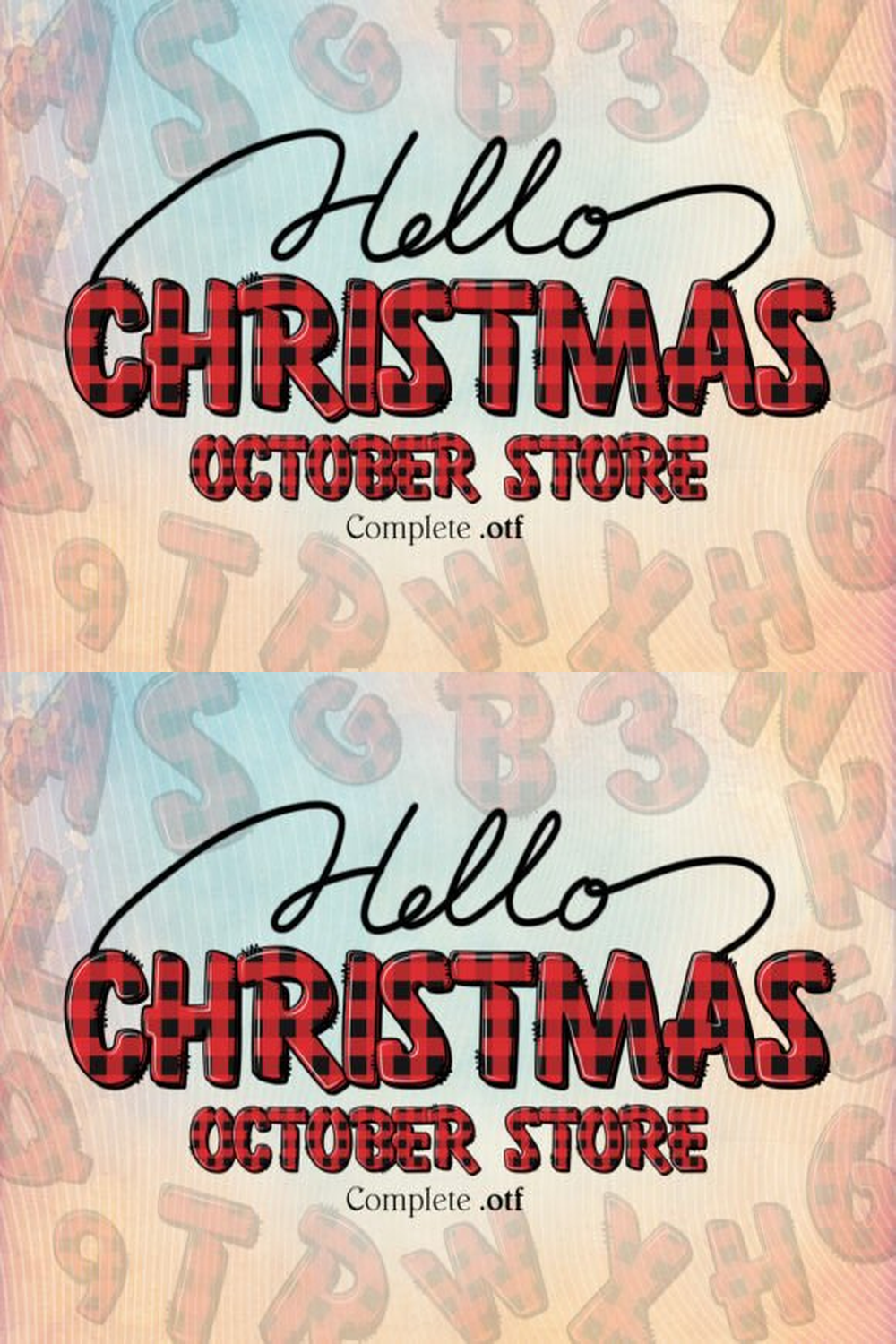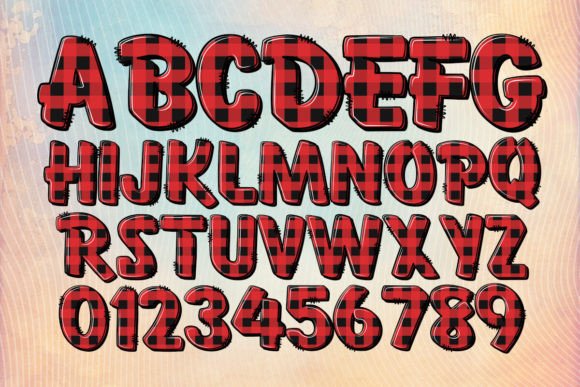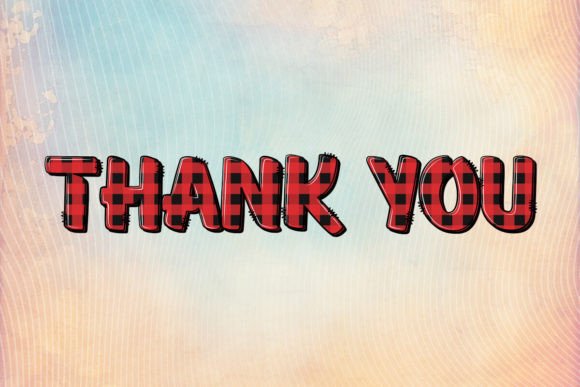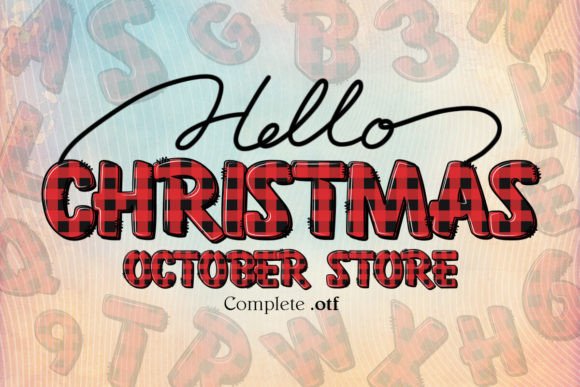
About the Christmas Font
Meet Christmas Font, a stunning font that brings a touch of elegance and professionalism to any design. Indulge in the festive spirit with Christmas Tartan Font, a captivating typeface inspired by classic holiday textile. Exuding a warm, cozy aura, this fabric font fosters a sense of love and family bonding. Seamlessly unifying traditional and contemporary design elements, Christmas Tartan Font delights in spreading the charm of yuletide celebrations. Dive into the magic of creating heart-warming messages, season’s greetings or stocking stuffer tags with this unique, comforting font. Rich in history and infused with love, this font is designed to awaken your creative inner elf this holiday season.